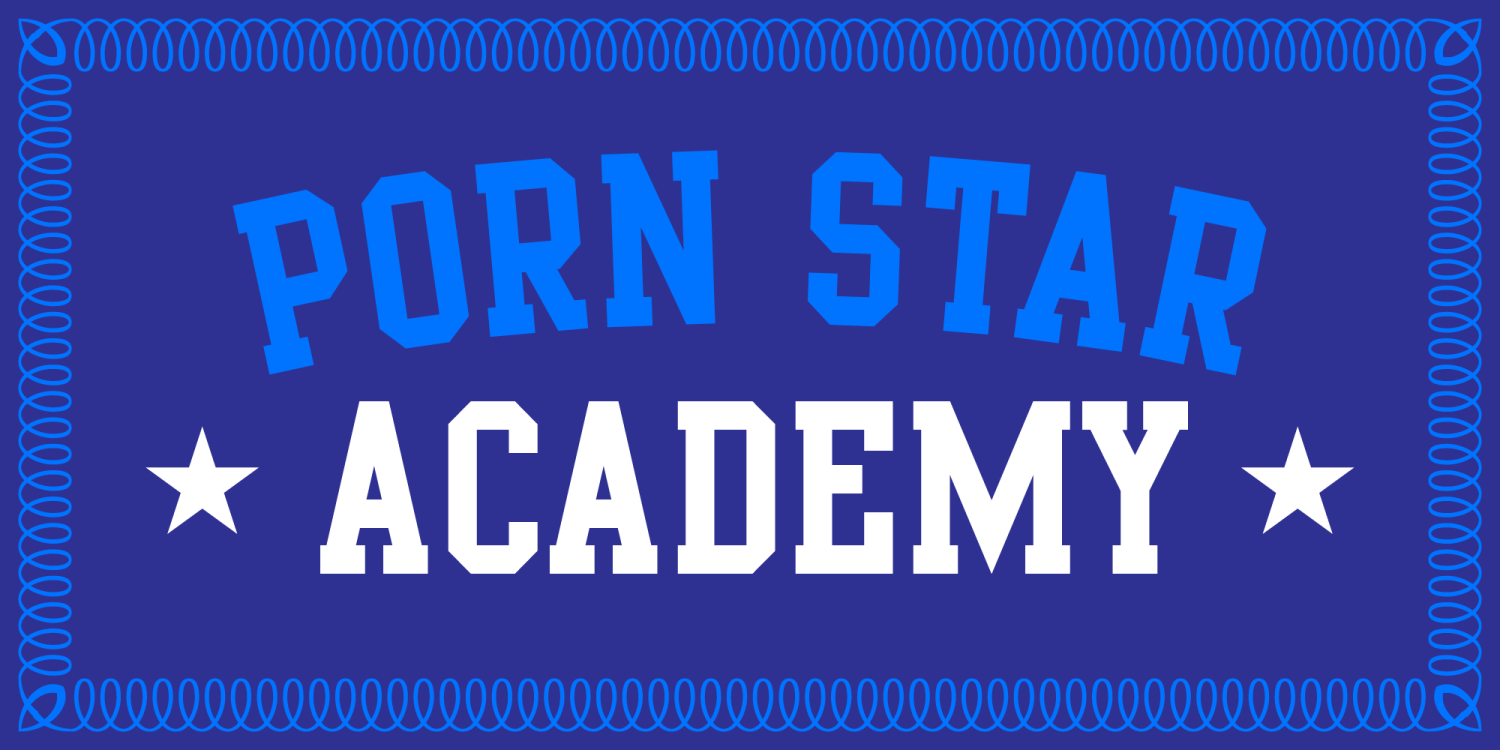
Porn Star Academy
About Porn Star Academy
Check out my newest font, created for future t-shirt graphics for Porn Star Clothing. I decided that the old skool College font just would not cut the mustard for this project. It was way too short and squatty, and that\’s all I want to say about that.…